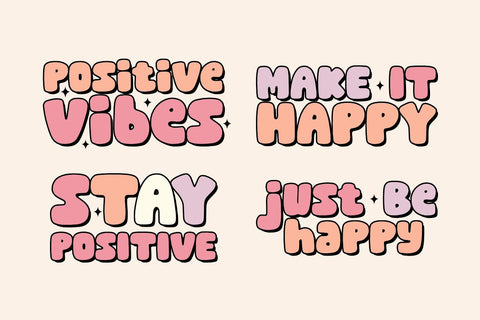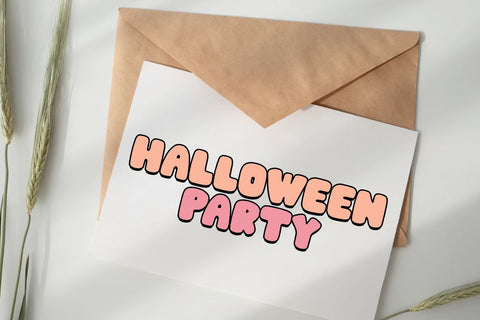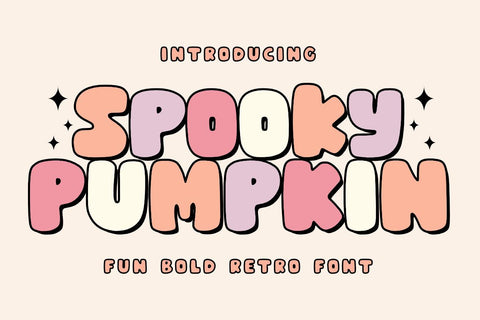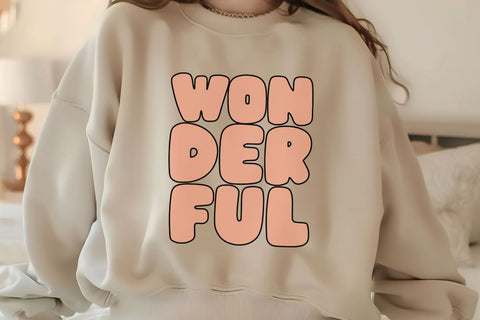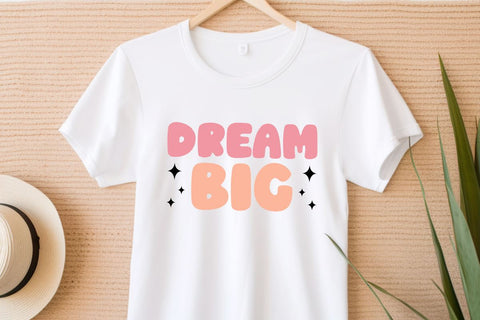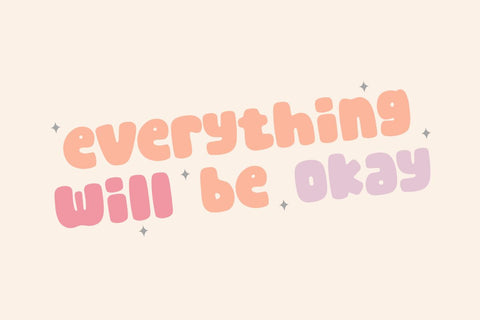
Spooky Pumpkin - Fun Bold Halloween Font
Spooky Pumpkin is a fun bold Halloween font. font inspired by typography, cute sticker design, Halloween theme. This font is perfect for Halloween celebration needs. Apart from that, this font is also suitable for crafts such as stickers, quotes, mugs, tumblers, sublimation, tote bags, planners, journals, branding, t-shirts, apparel, wall art, banners, posters, cards, key chains, pillows, and other creative ideas . Not only that, this font is also perfect for marketing media and social media needs such as YouTube thumbnails and social media content.